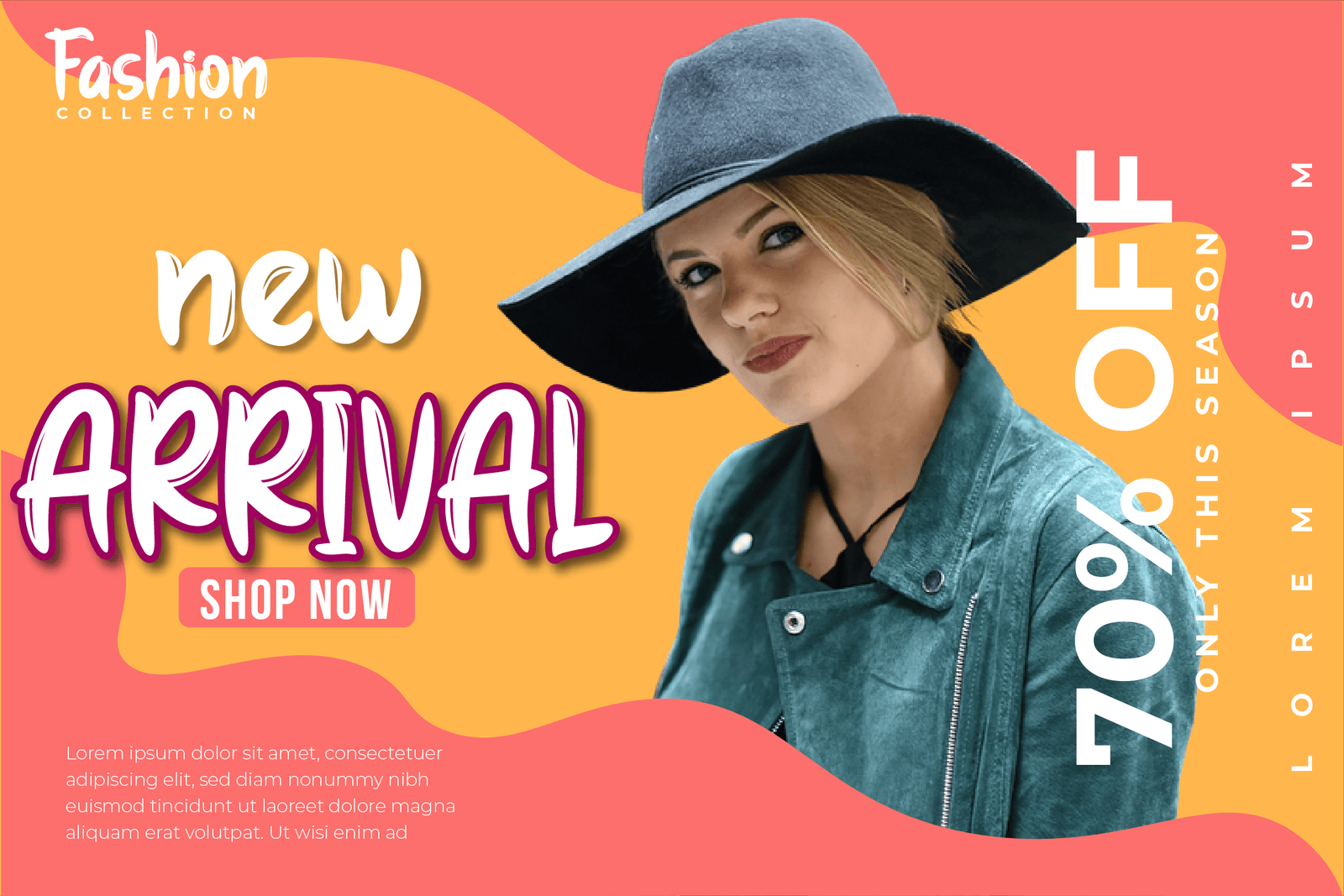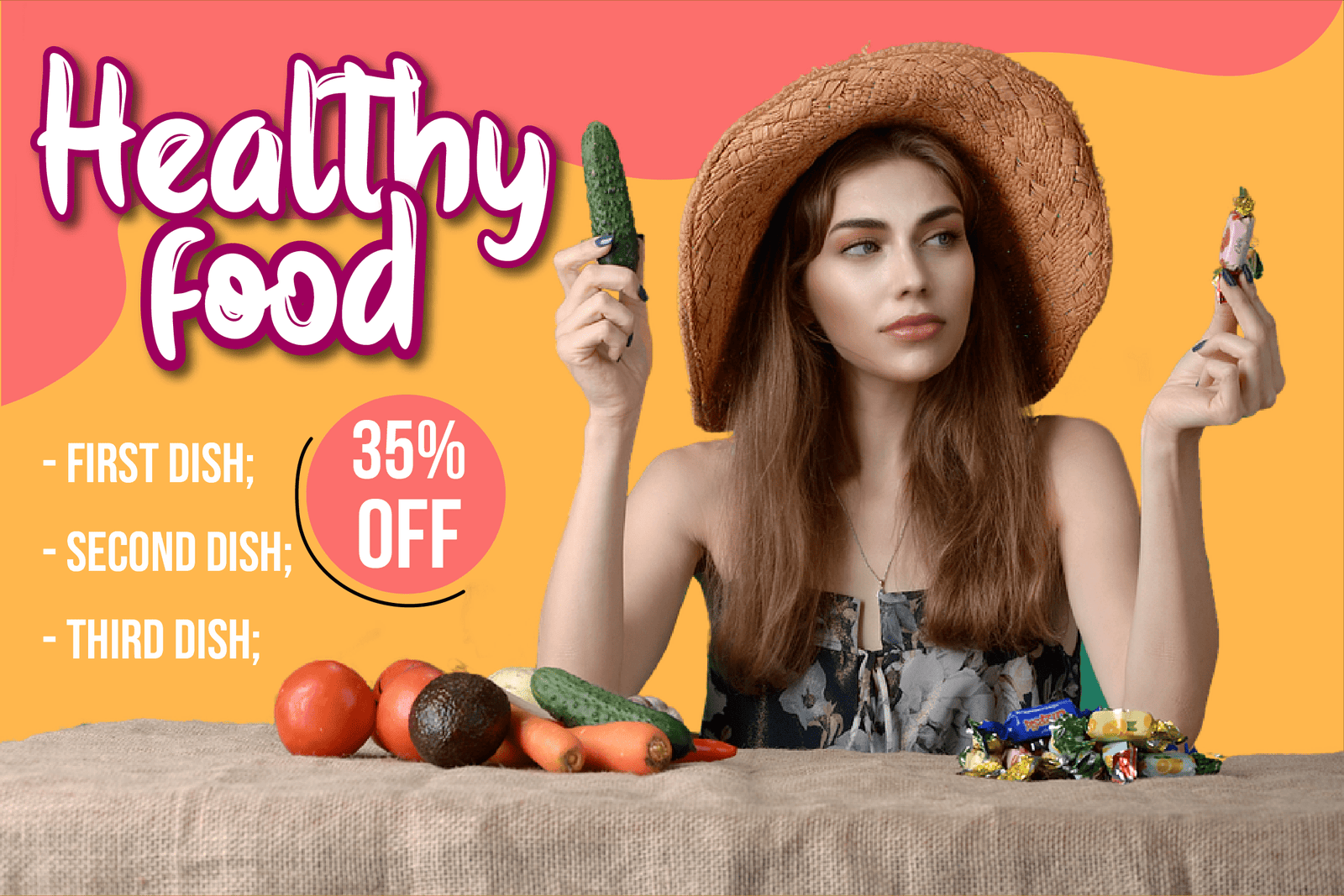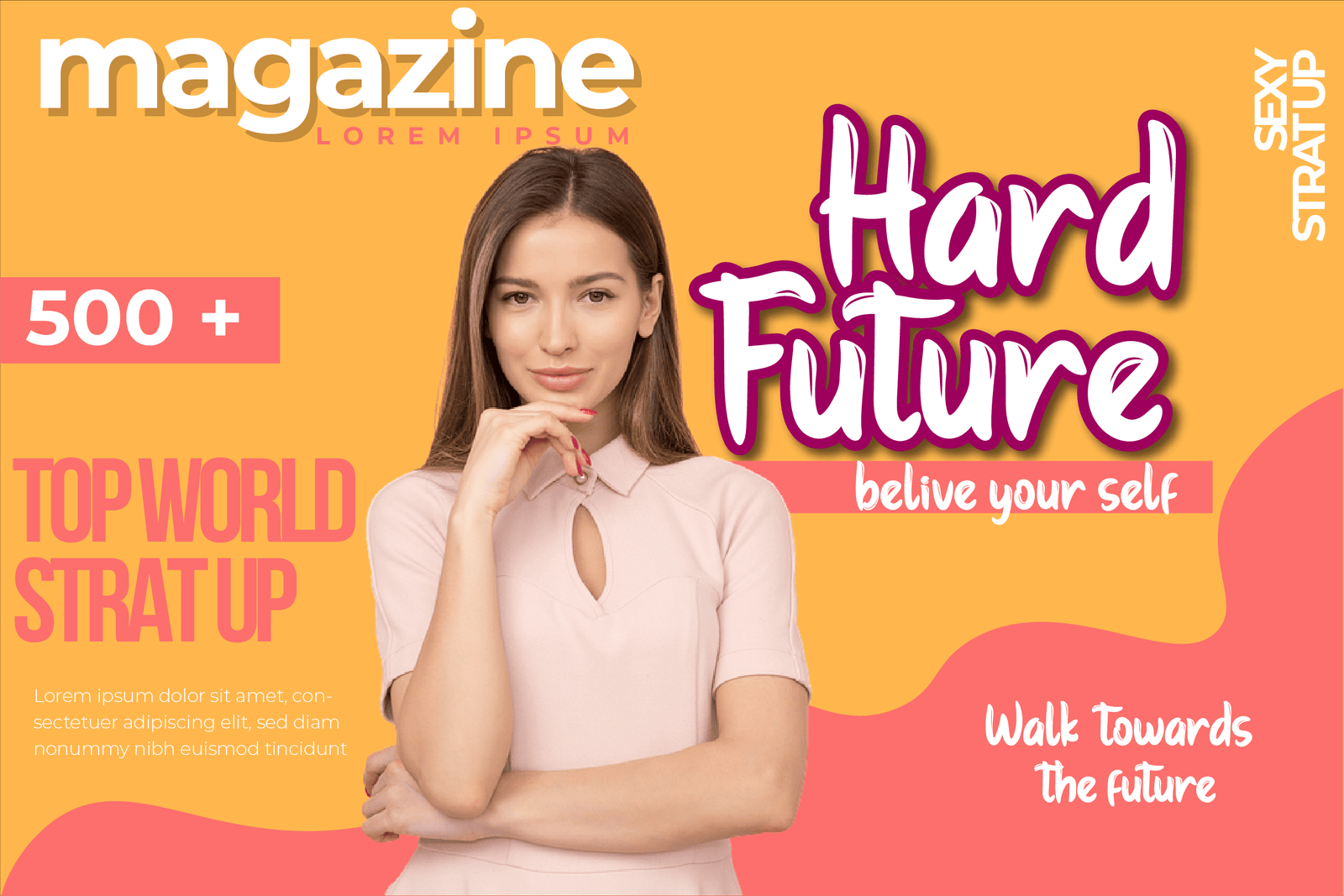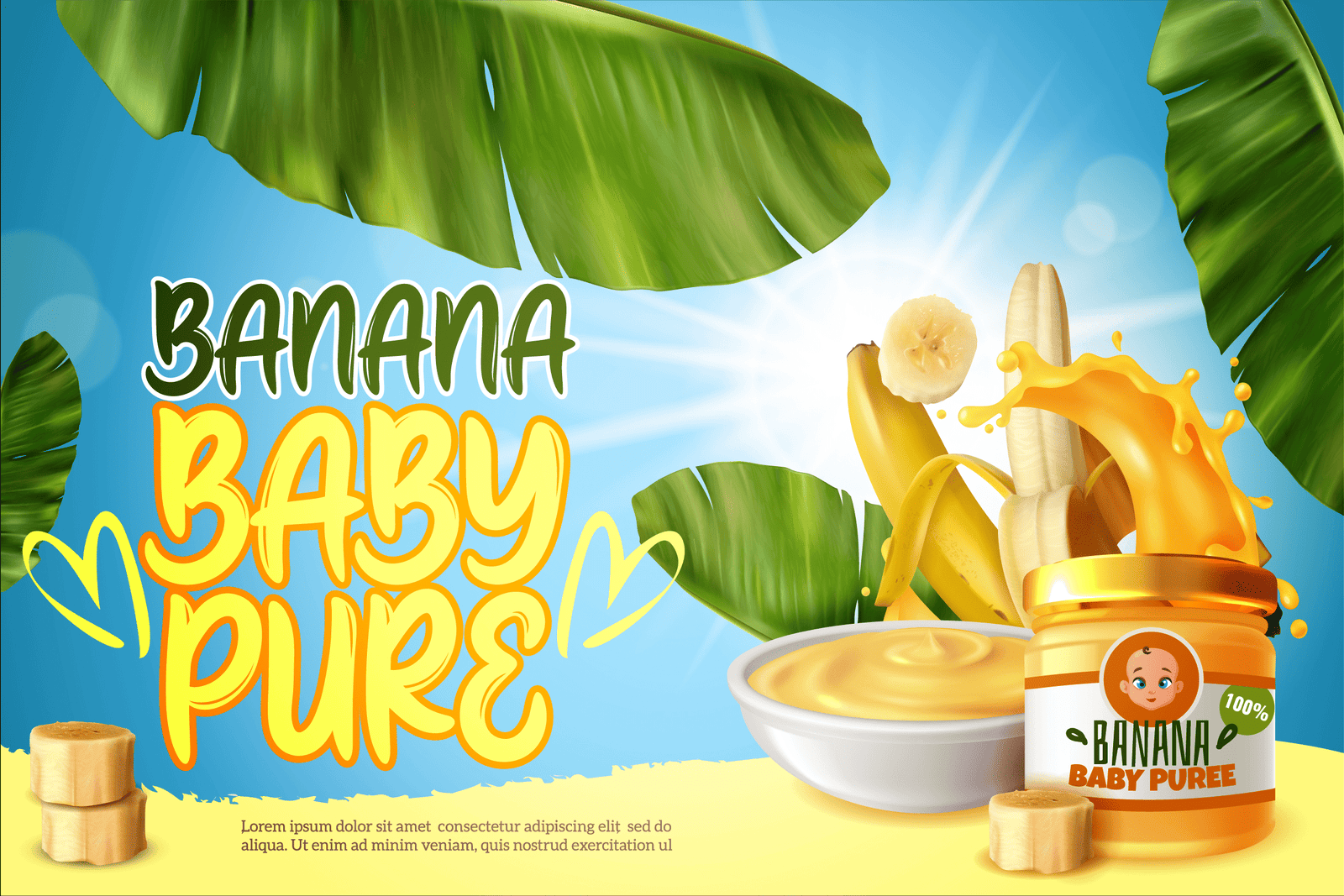
Kids Dress
Sprinkle a dash of fun and playfulness into your projects with Kids Dress, a lively Brush Font inspired by the carefree creativity of children’s doodles. Perfect for kids’ apparel, toy packaging, birthday invitations, and playful branding, Kids Dress features a whimsical brushstroke style that feels hand-drawn and full of joy. The dynamic, slightly messy characters capture the essence of childlike wonder, making your designs look friendly, approachable, and bursting with personality.
With its vibrant and energetic letterforms, Kids Dress is ideal for any project aimed at children or families. Whether you’re creating colorful posters, designing a logo for a kid-focused brand, or crafting a playful social media graphic, this font adds a touch of imagination and excitement. Its bold brush strokes make text stand out while retaining a soft and inviting vibe, perfect for engaging young audiences.
Brighten up your designs with Kids Dress, the Brush Font that brings joy, creativity, and a touch of youthful spirit to every project.